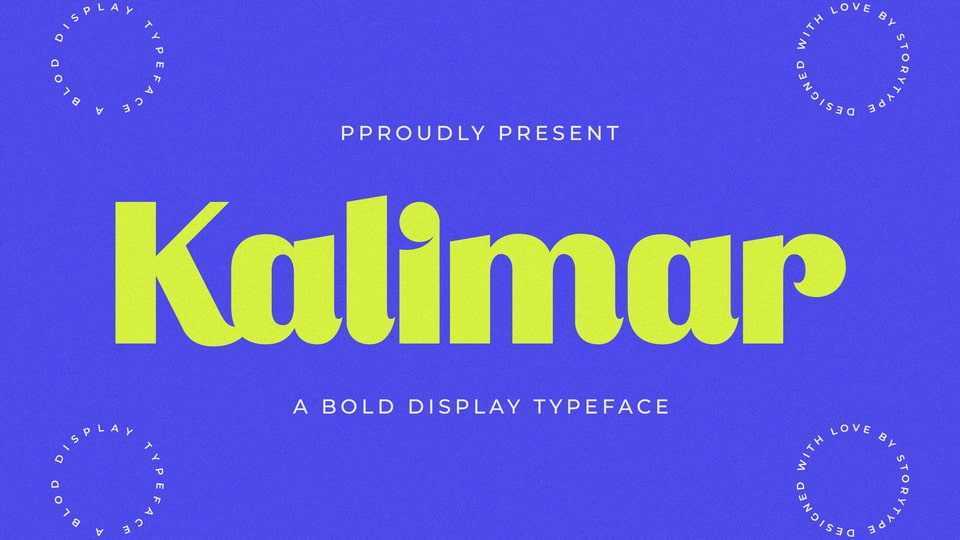
Download Kalimar font, a bold sans serif typeface that has own unique style and modern look. Kalimar font is perfect for an elegant and cool logo, book or movie title design, fashion brand, magazine, clothes, lettering, quotes, and so much more.